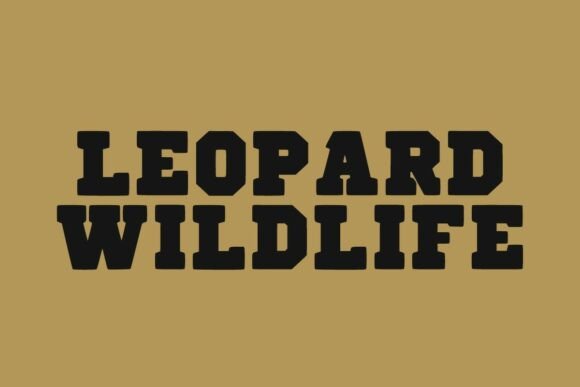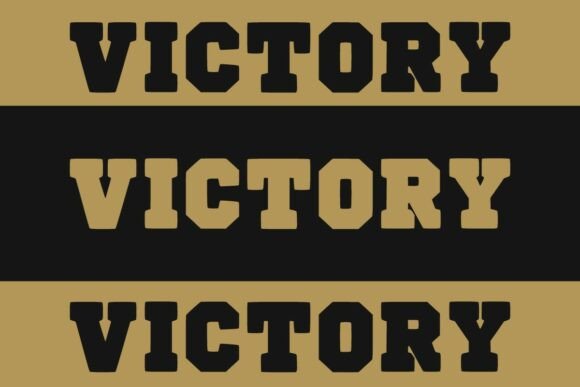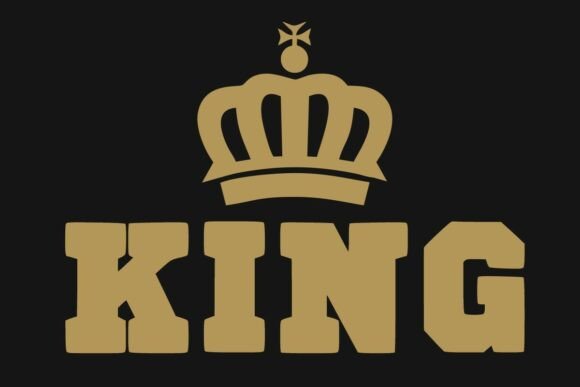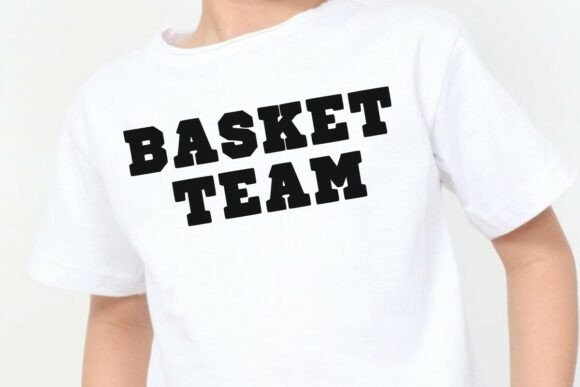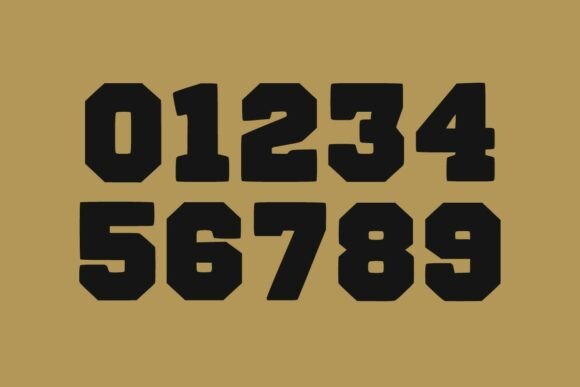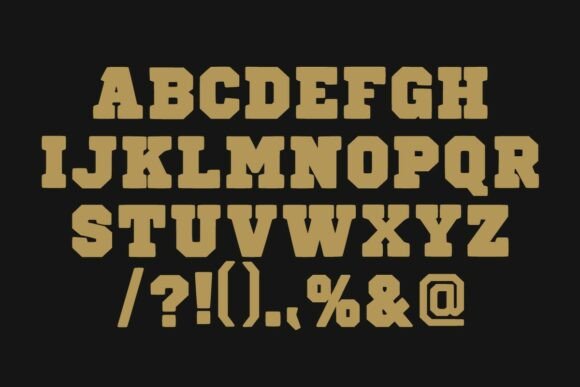
Introduction to Golden Sport Font
Golden Sport is a sport college font that is made for any professional project branding, such as poster, branding, logo brand, promotions, product packaging, and more.
Golden Sport is a sport college font that is made for any professional project branding, such as poster, branding, logo brand, promotions, product packaging, and more. Every letter has a bold vintage